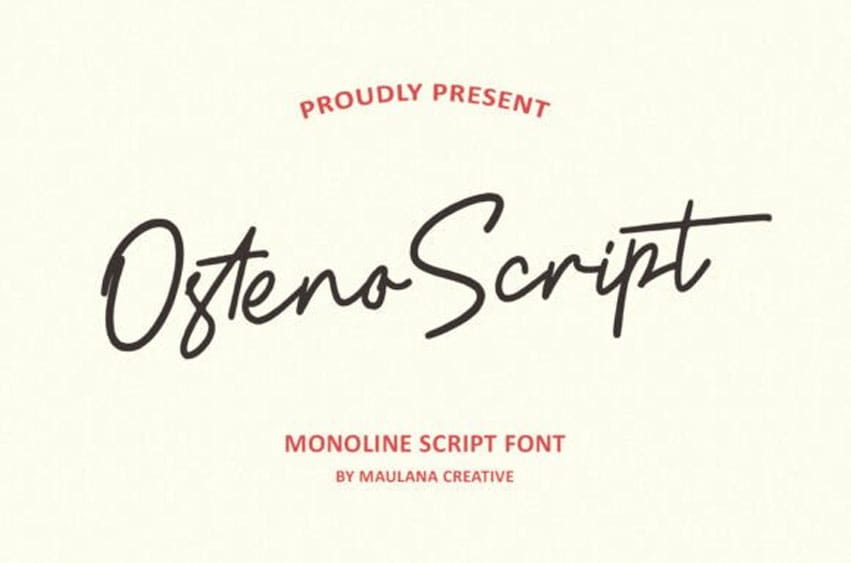
Osteno Script Font is a stunning monoline script font that captures the essence of authentic, relaxed handwritten elegance. Osteno Script is your go-to typeface for projects that demand a personal, stylish, and contemporary touch.
Its beautiful, flowing strokes and consistent monoline weight make it incredibly versatile, perfect for:
– Branding logos, giving your business a unique identity.
– Product design, creating stylish designs and awesome products.
– Quotes and social media graphics, adding a chic and emotional flair to your content.
– Invitations and greetings, conveying warmth and sophistication.
– Photography watermarks, protecting your work with a delicate signature style.
Osteno Script comes complete with a full set of uppercase and lowercase characters, numerals, punctuation, and essential multilingual support. It also features a variety of beautiful ligatures and alternate styles to make your text truly stand out.